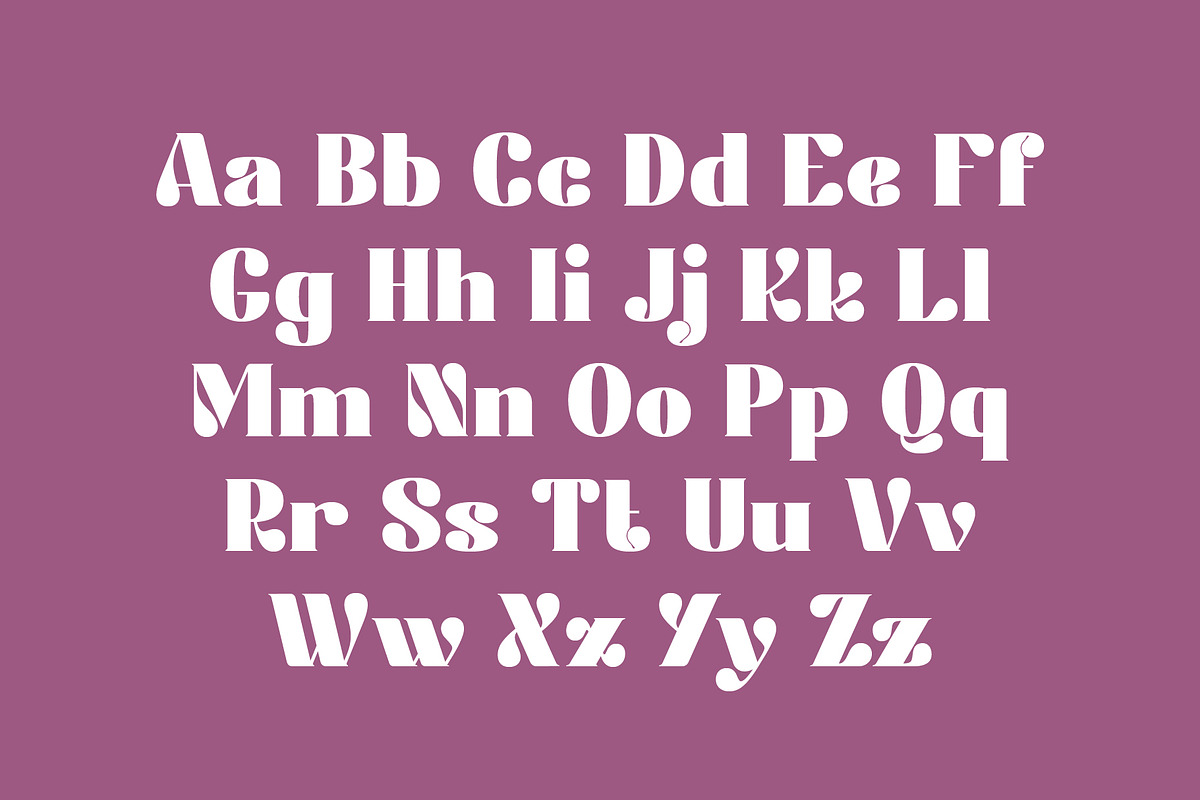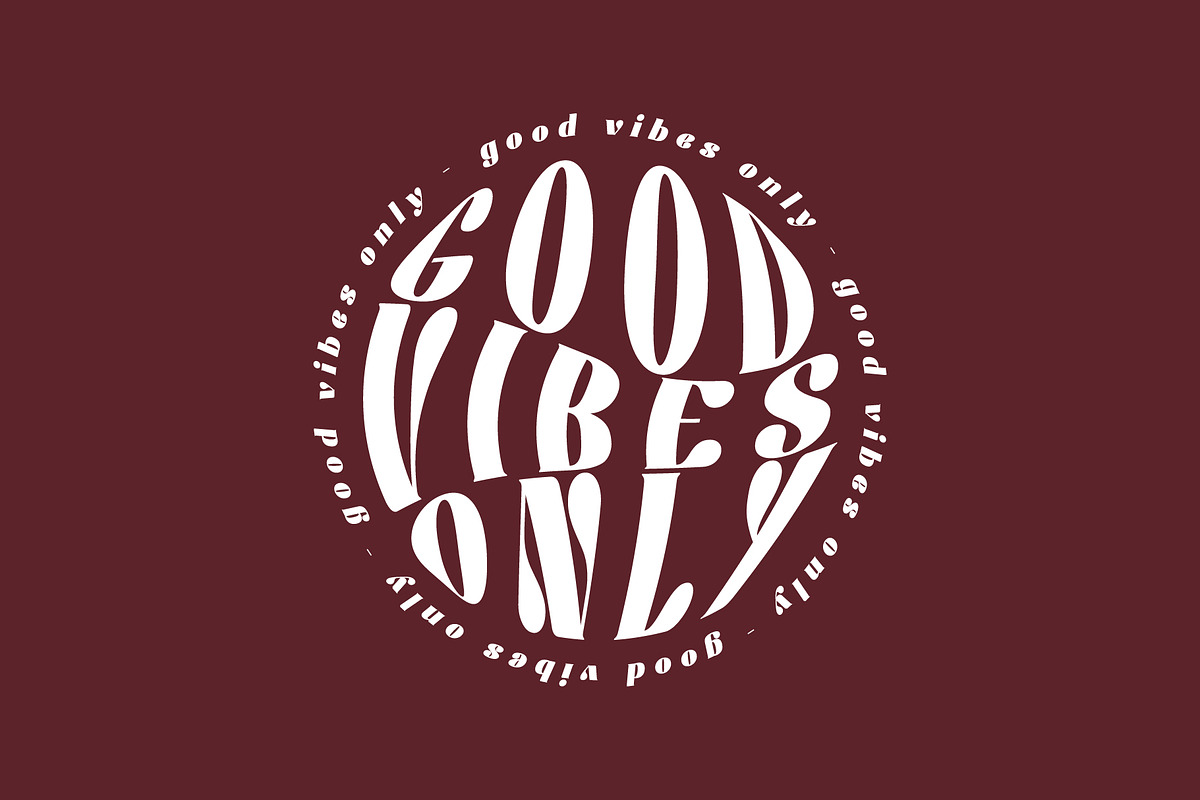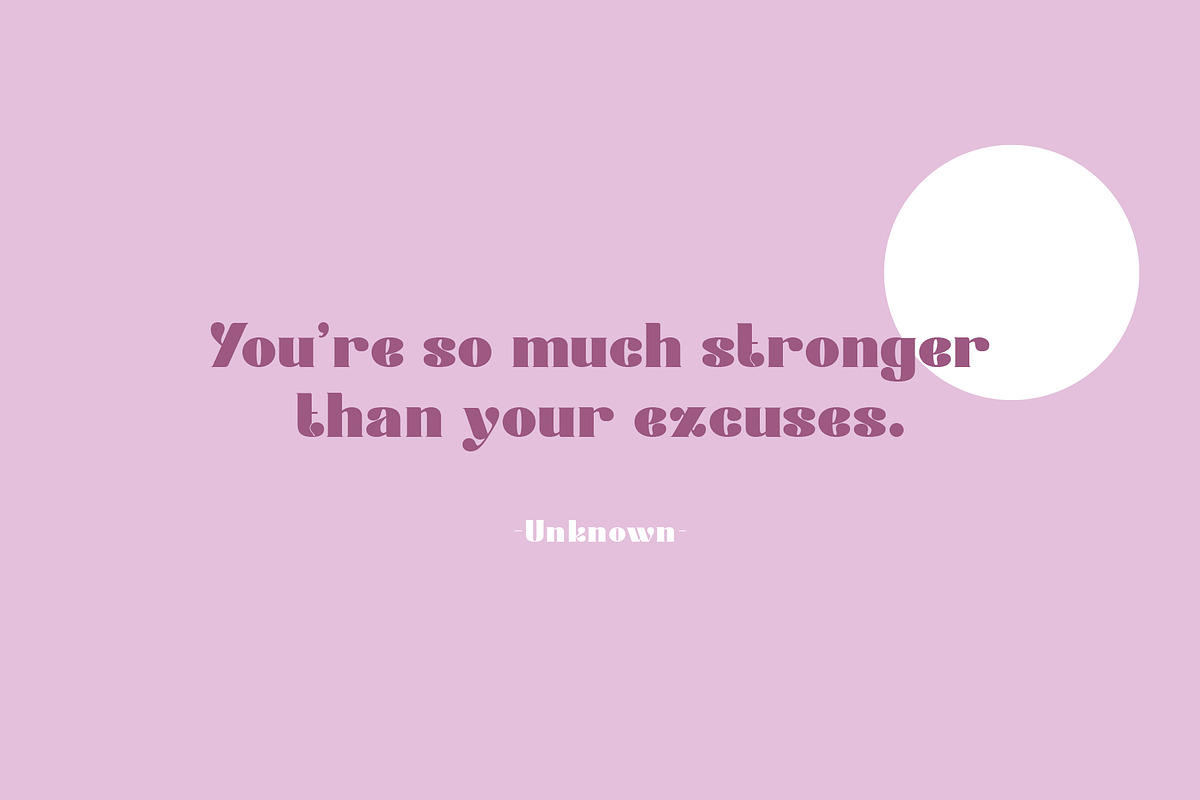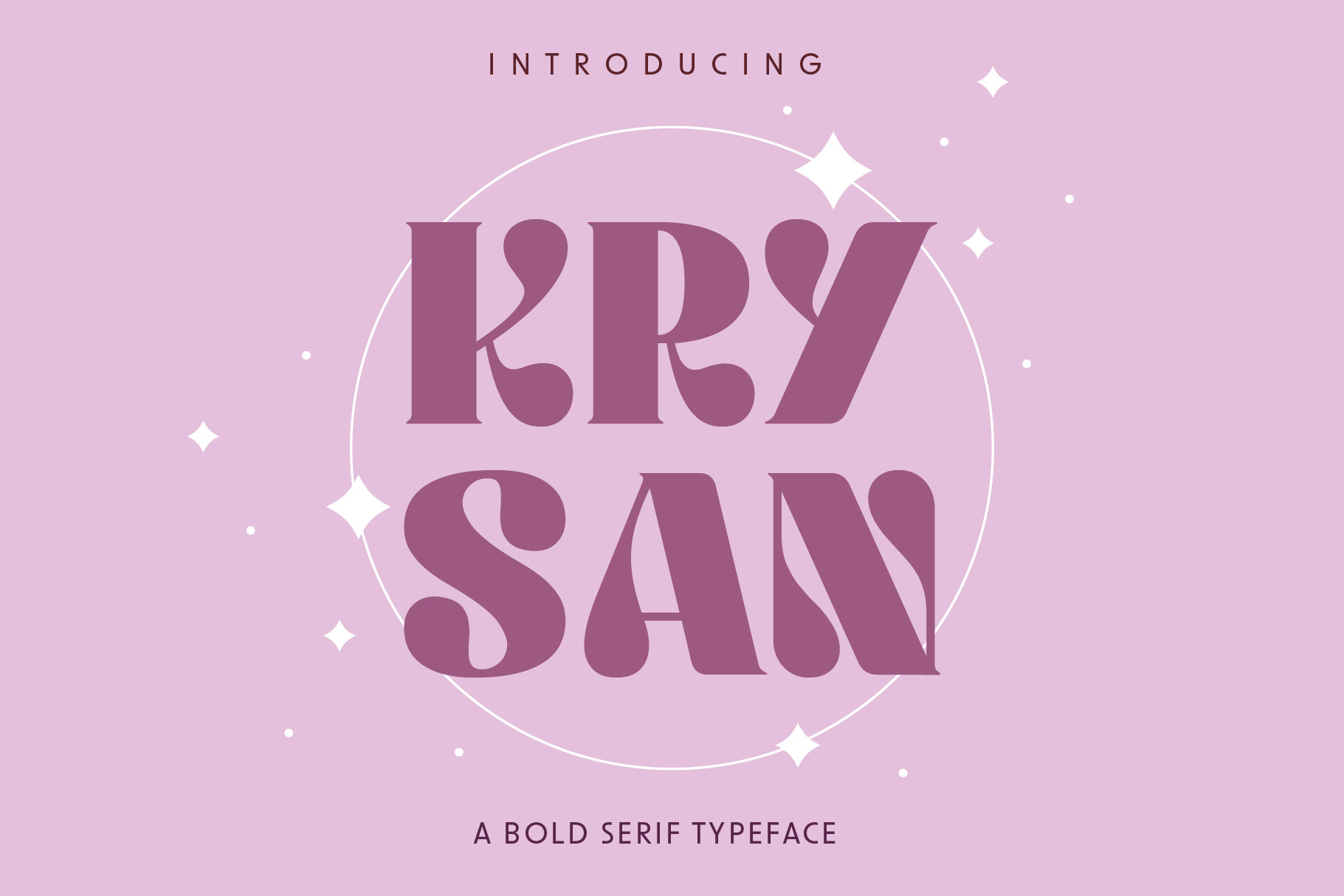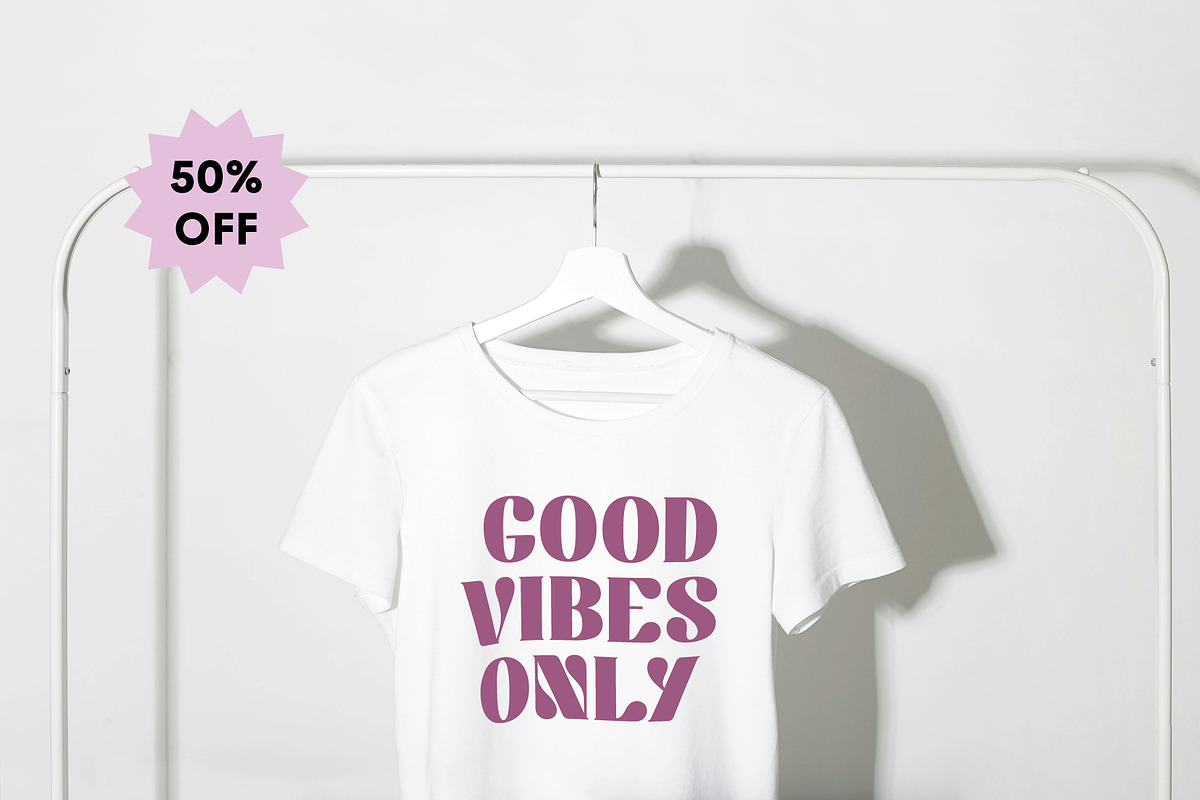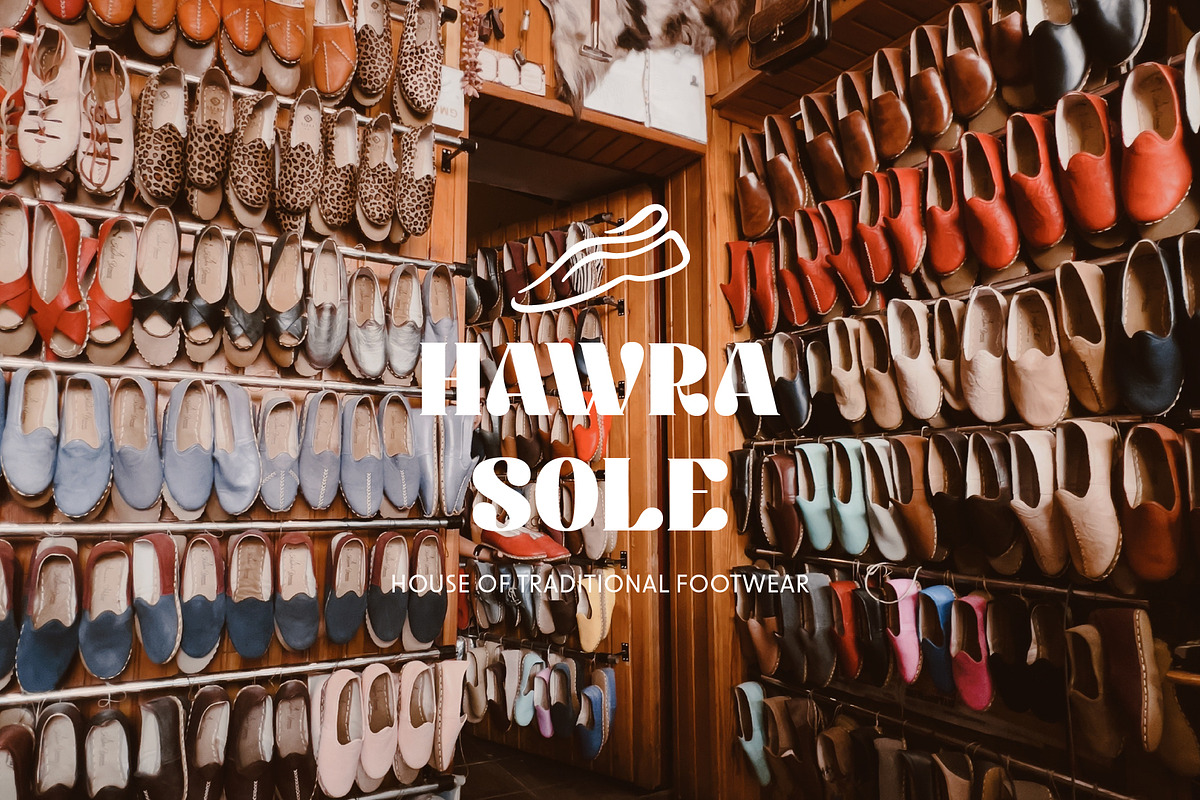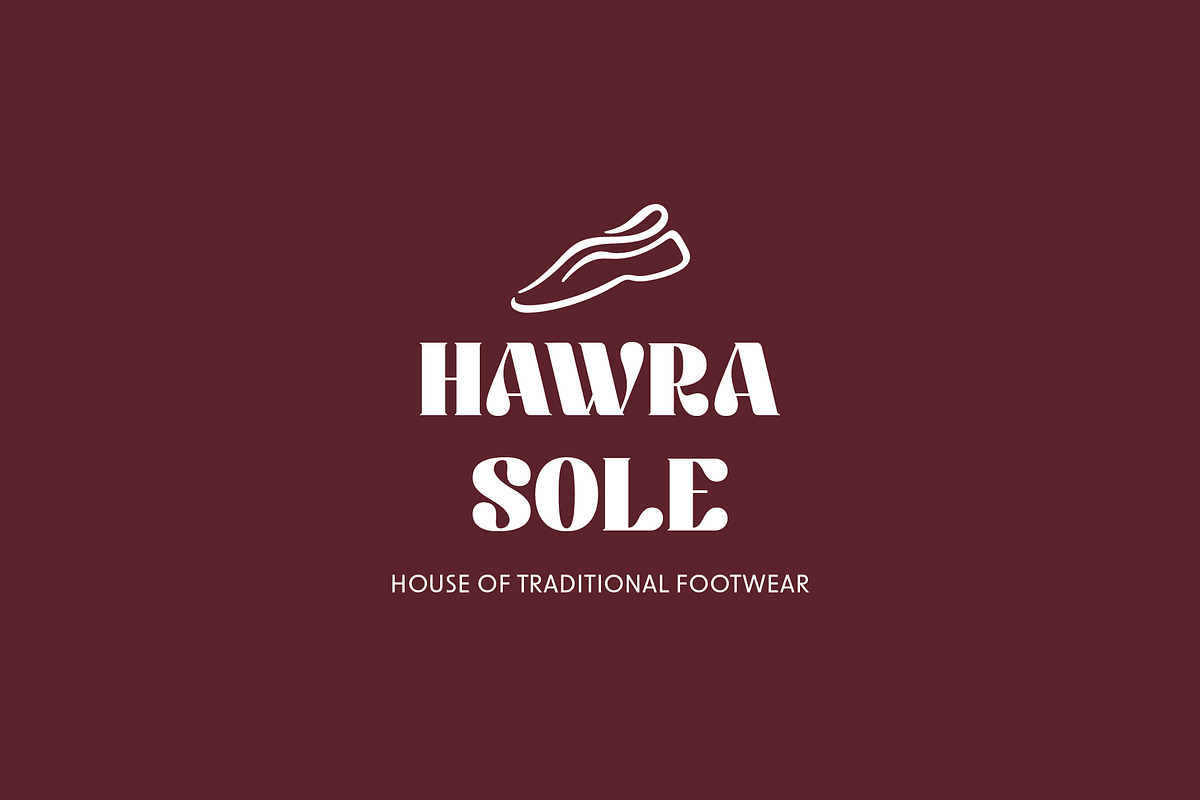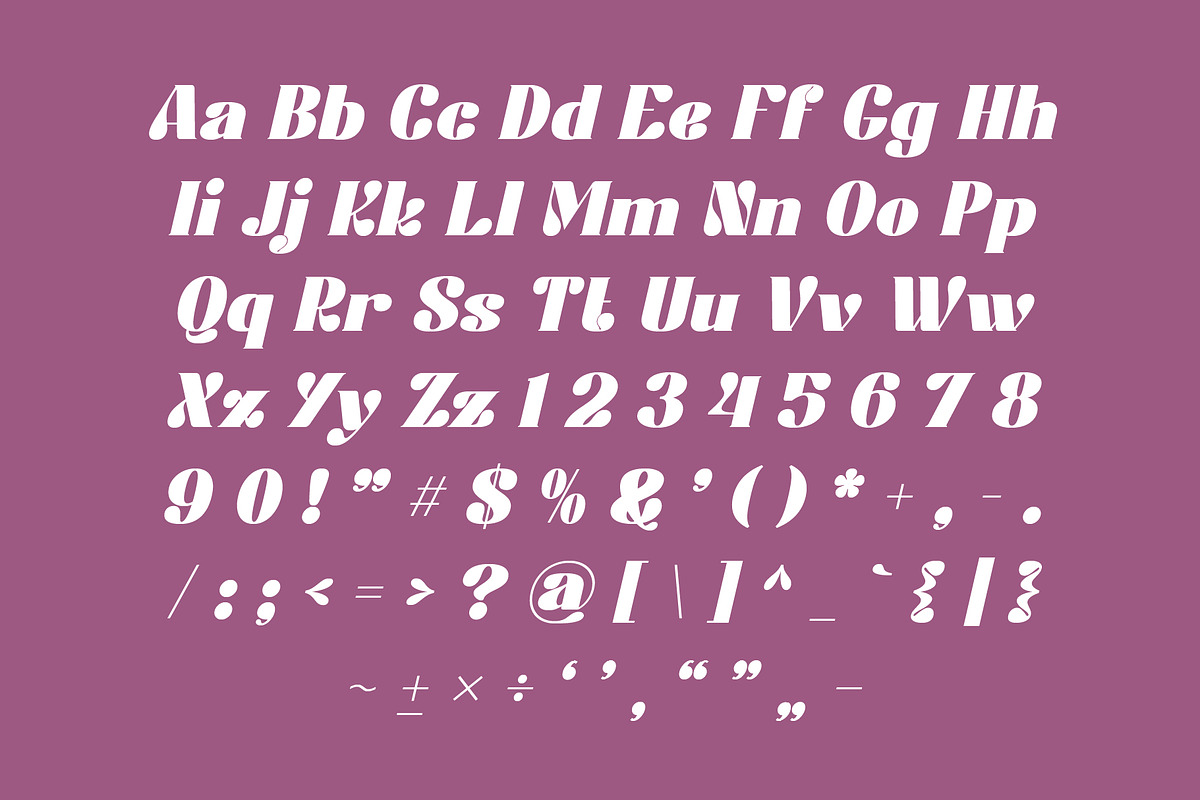
Krysan - Display Serif Font
Check out this super sleek Krysan Serif font that's all about retro vibes. Krysan typeface is the perfect font to make your branding and poster design to the next level!
Krysan Font is the really nice font for those who want to make a statement being too flashy. Its clean lines, bold and retro aesthetic make it a great choice for logos, headlines, and body text alike. With its features, you can easily create a cohesive look for your brand or project. Plus, its simplicity makes it easy to read and comprehend, so you can be sure your message is getting across loud and clear.
Krysan Font includes with italic.